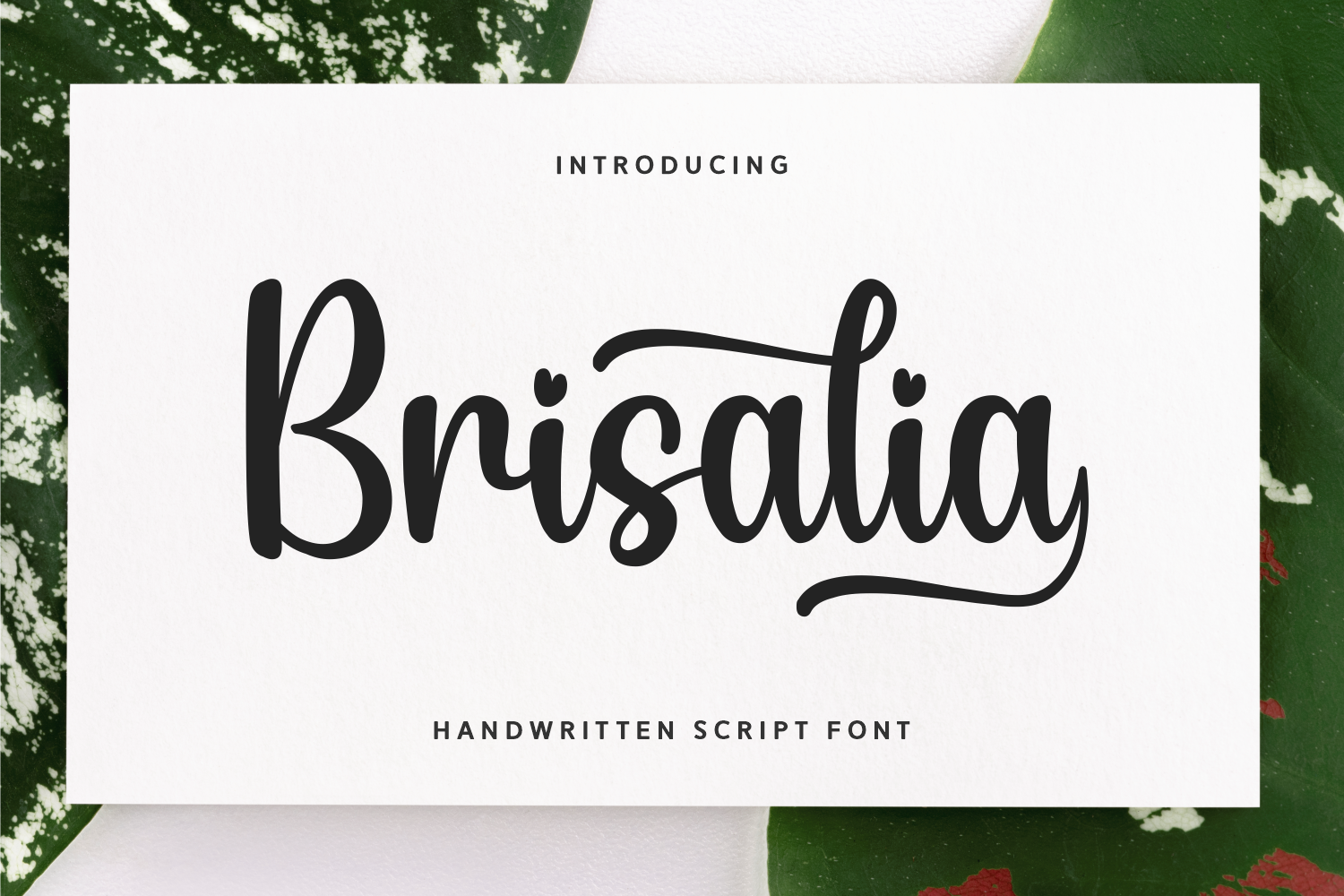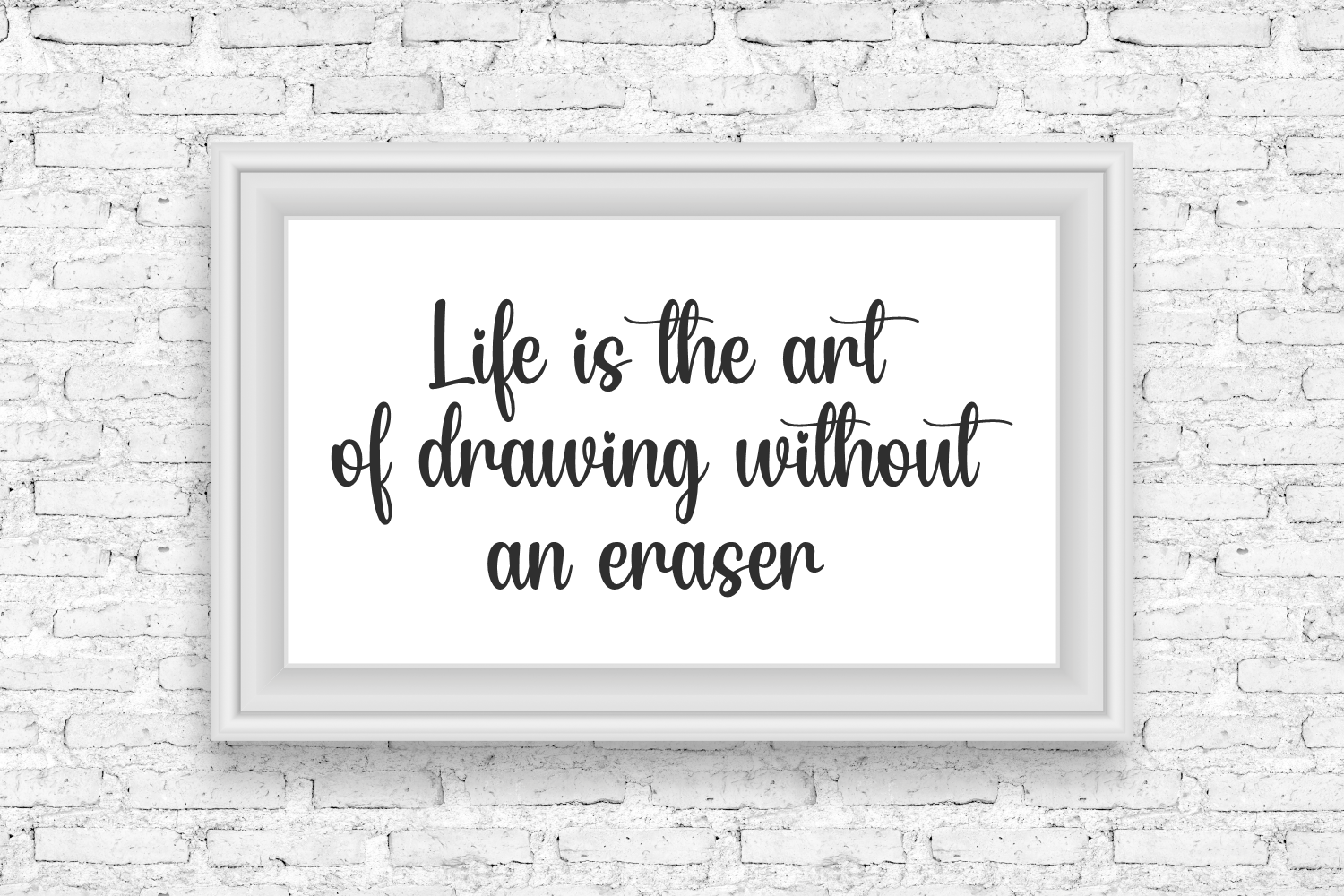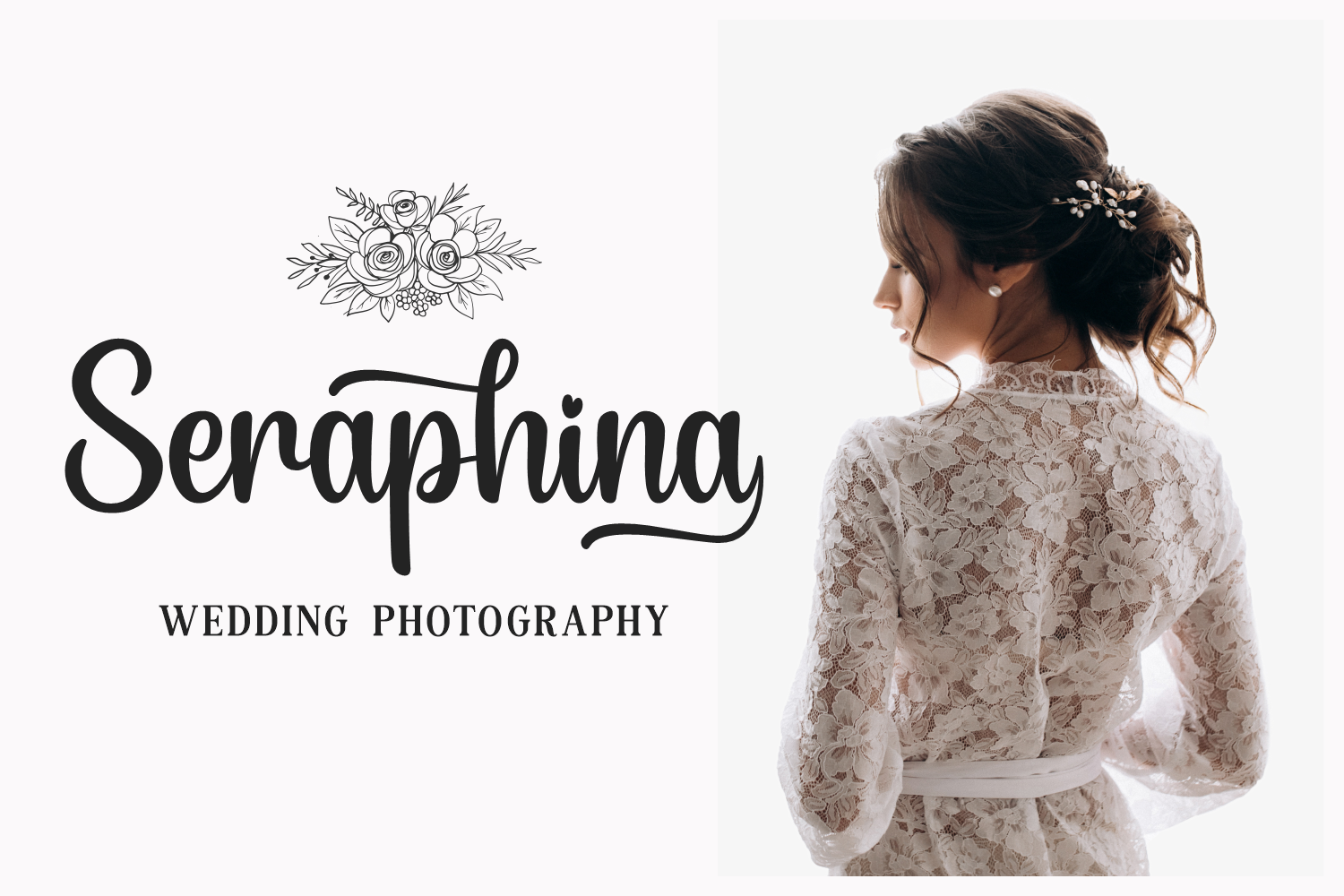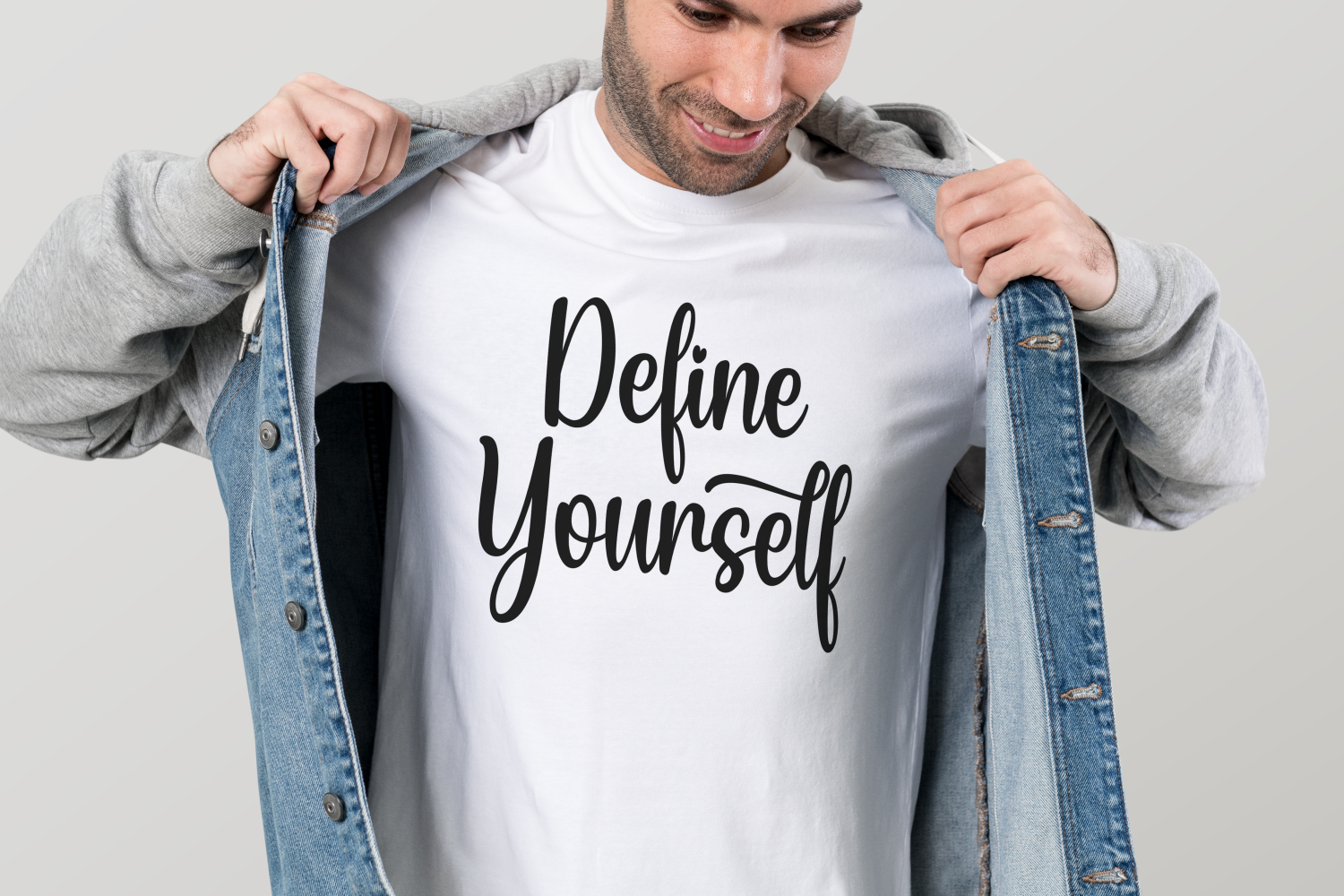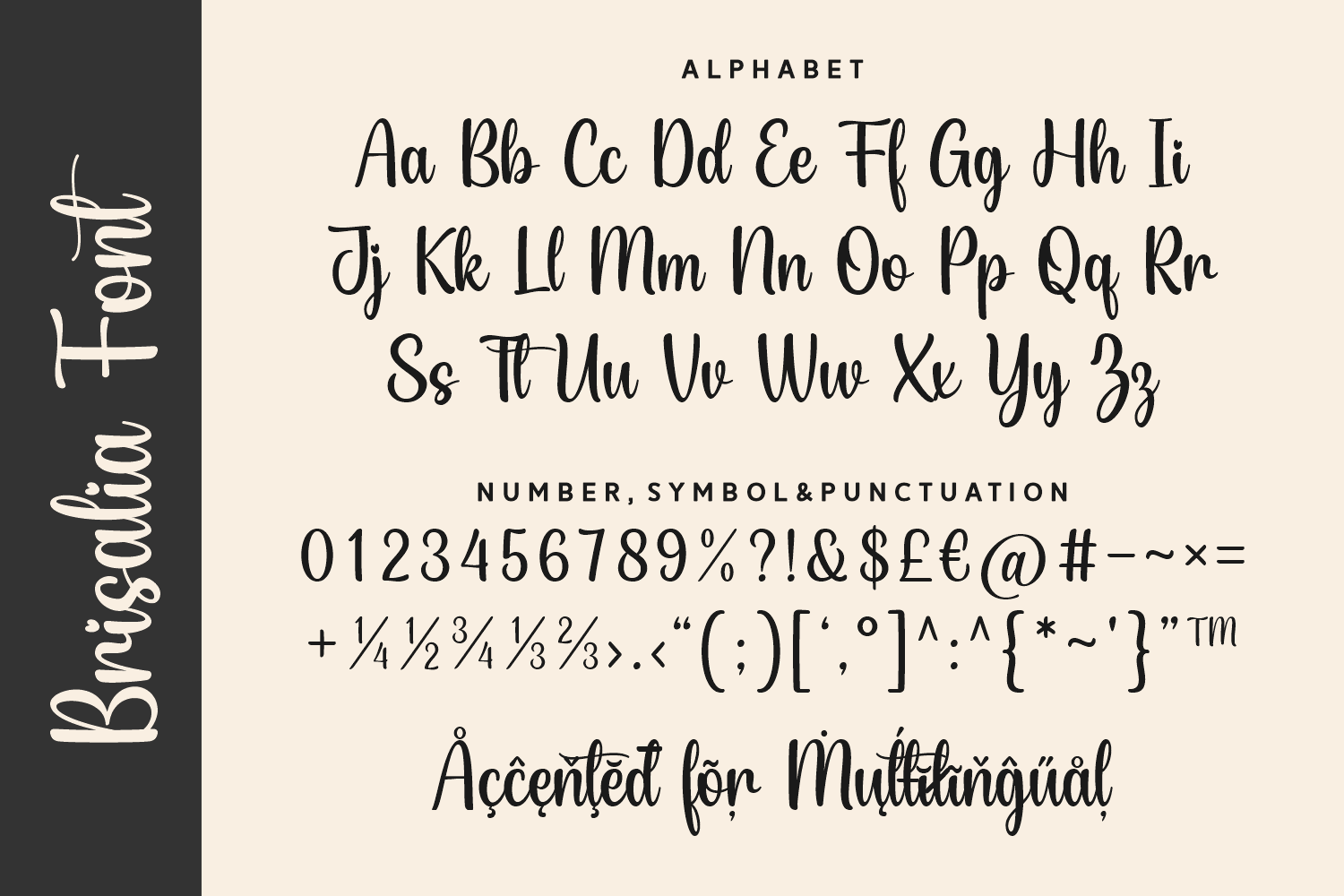
Brisalia is a sweet and cheerful handwritten script font that radiates charm and warmth. With playful heart-shaped accents and a smooth flowing stroke, it’s ideal for branding, greeting cards, baby products, or any project that calls for a lighthearted, personal touch.